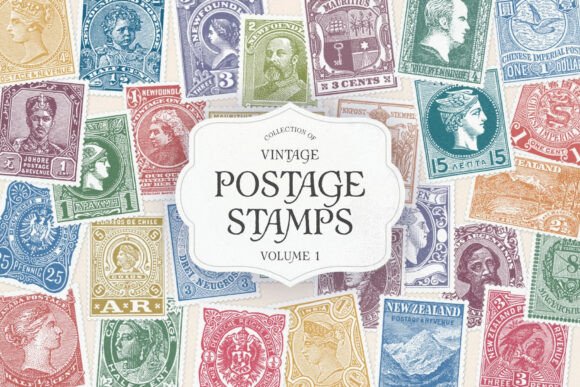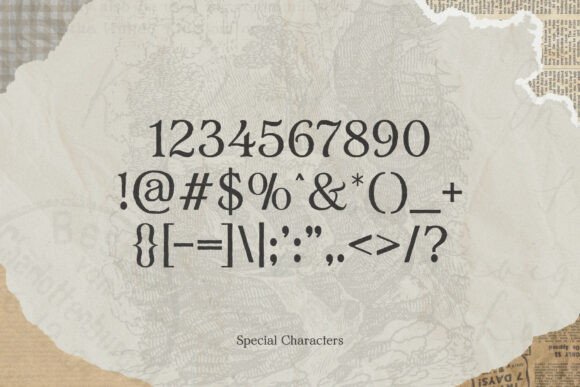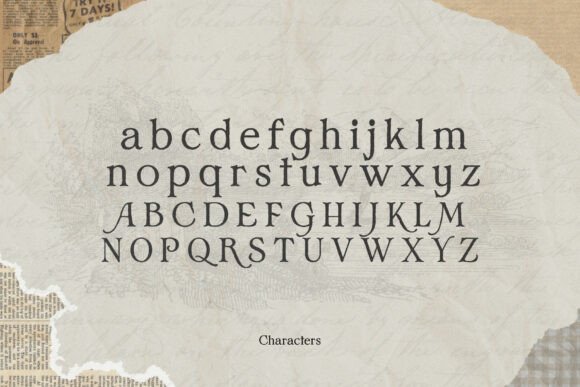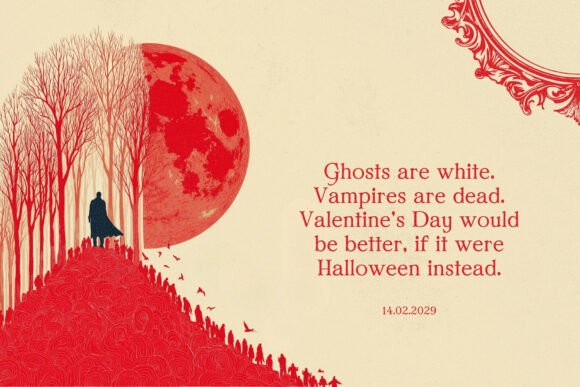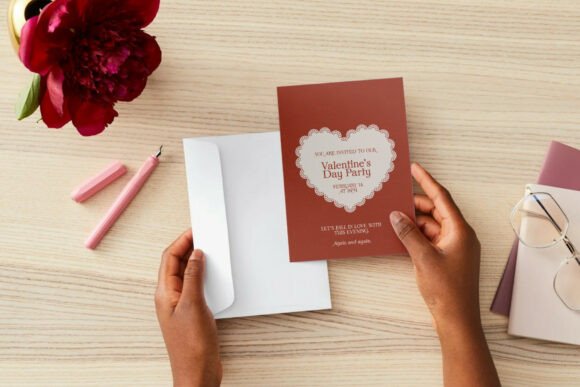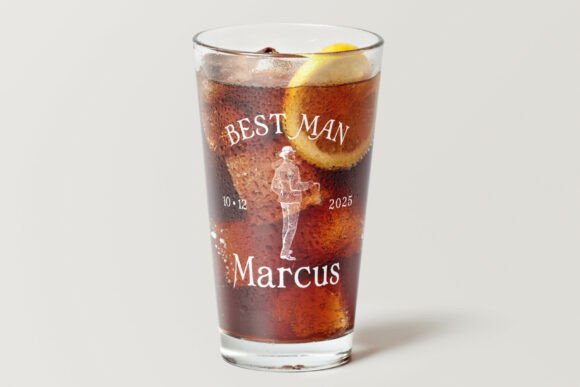
Introduction to Sinderfell Font Font
Fonts play a crucial role in design, and the Sinderfell Font font is a typeface that brings both character and versatility to any project. Whether you’re working on a branding project, a website, or a print design, the Sinderfell Font font offers a unique style that can elevate your work.
Introducing Sinderfell, a vintage hand-lettered serif typeface crafted with authenticity, warmth, and timeless character.
Carefully drawn by hand, every letter carries subtle imperfections, organic textures, and natural edge variations that give the font a genuinely human feelβfar removed from overly polished digital typography Inspired by antique signage, old book covers, faded packaging, heritage branding, and traditional printmaking, Sinderfell captures the raw beauty of classic craftsmanship while remaining elegant, readable, and highly versatile.
Key Features of Sinderfell Font Font
Why Choose Sinderfell Font Font?
The Sinderfell Font font is more than just a typeface β it’s a design tool that helps you communicate your message with style and clarity. Its unique character set and versatile design make it suitable for a wide range of applications, from elegant invitations to bold headlines.
With its carefully crafted letterforms and balanced proportions, the Sinderfell Font font ensures readability and visual appeal across all mediums.
What makes Sinderfell Font font special?
The Sinderfell Font font stands out with its unique design, exceptional readability, and versatility across various design applications.